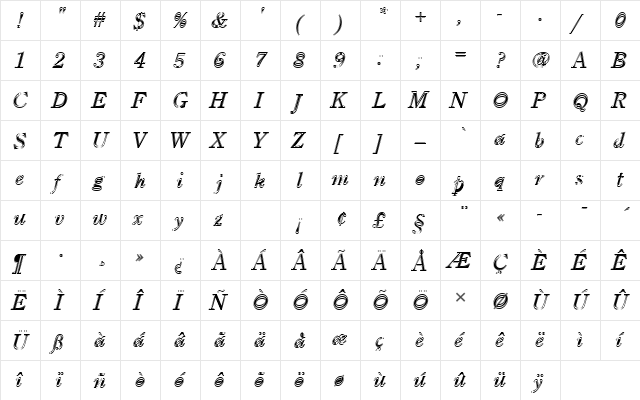
CenturyOldStyTRegItaIn1 Regular Font Preview
CenturyOldStyTRegItaIn1 Regular
CenturyOldStyTRegItaIn1 Regular Font Details
Design Context for CenturyOldStyTRegItaIn1 Typeface
CenturyOldStyTRegItaIn1 is a composed and adaptable typeface that performs quietly and consistently across a wide range of design contexts.